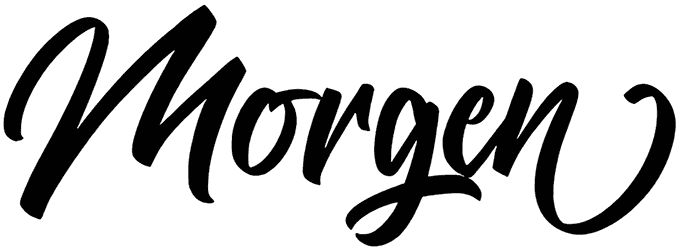
Morgen Font
Looking for a creative and unique cursive font to crank up your design a bit by including a personal feel into it? Morgen is exactly what you were looking for, which you can use from graffiti and games to street art museum posters.
As a script font, not only does this font offer you a great design, it also brings you a collection of all the characters from uppercase and lowercase to numbers and punctuation marks.